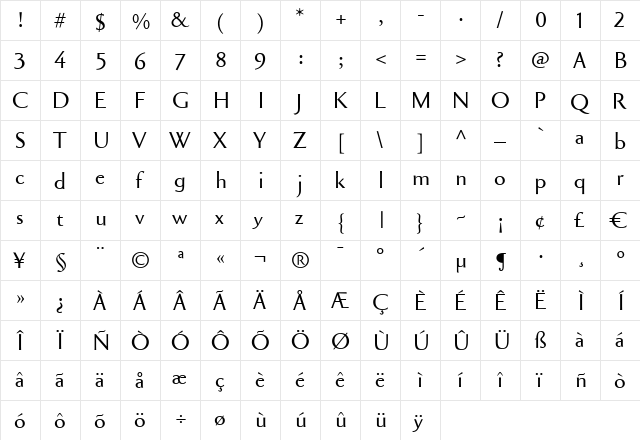
Cimiez Roman
Design Context for Cimiez Typeface
Cimiez offers clean, dependable letterforms without strong stylistic allegiance, making it a practical choice for designers who need flexibility.